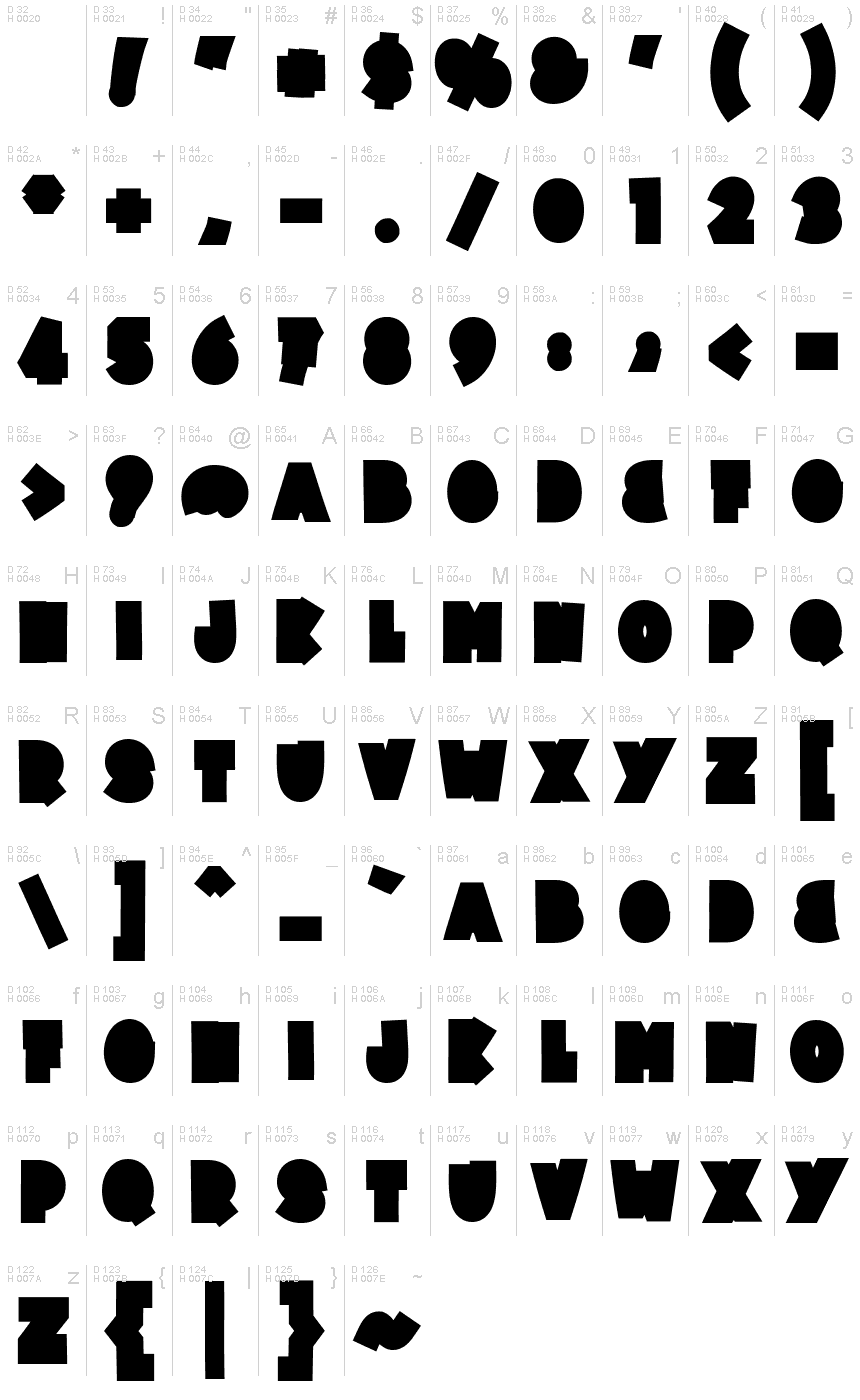
Richu Mast Extrude
Richu Mast Extrude is a vibrant and captivating display font from the renowned Mabhal Studio. With its ultra-bold weight and semi-expanded width, this cartoon-inspired typeface adds a playful touch to any project. Perfect for children's books, comic strips, advertisements, and branding designs, Richu Mast Extrude brings life to your creative endeavors. Stand out from the crowd with this literate font that merges fun and professionalism seamlessly. Unleash your imagination with Richu Mast Extrude!